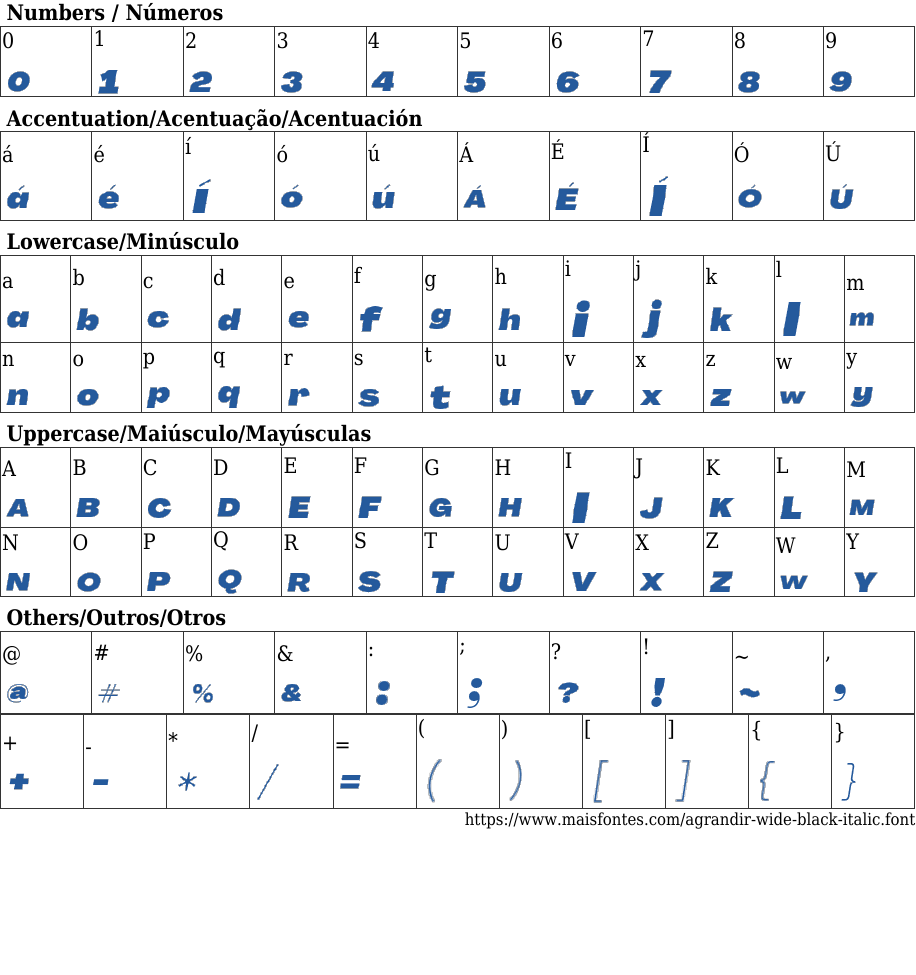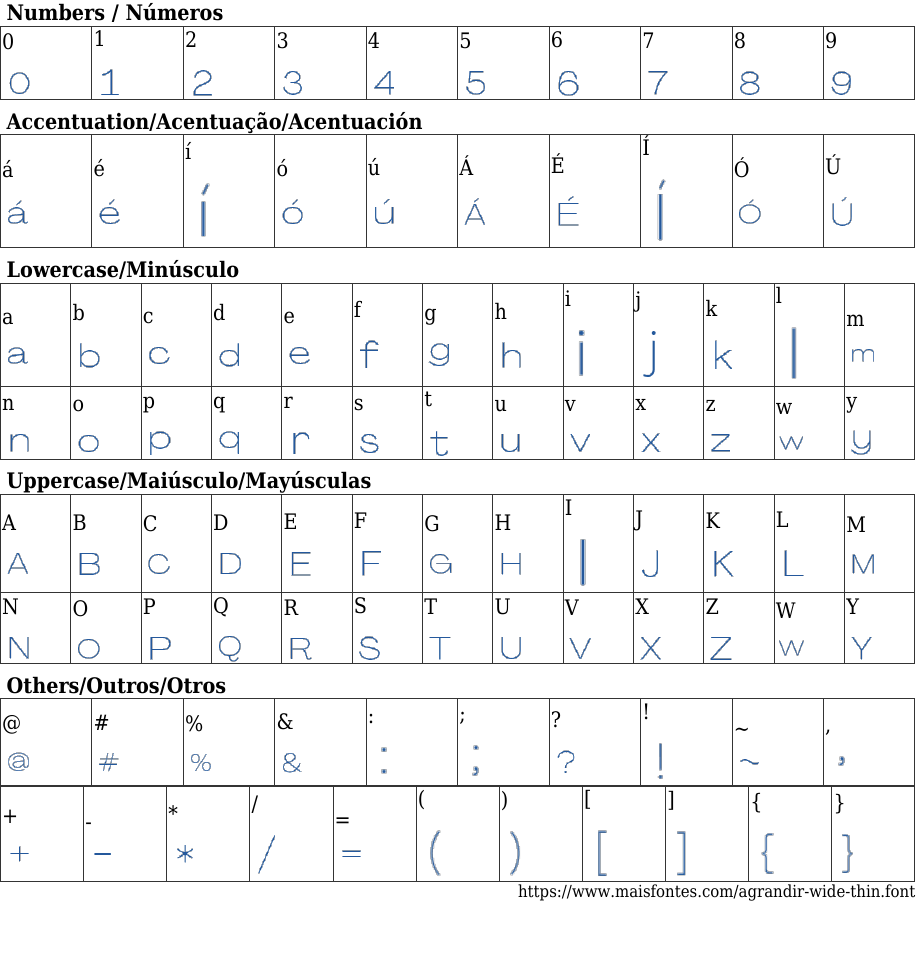
Agrandir Wide Font Download - It celebrates humanity, not machines. It has a modern and minimalistic appearance,.
It has a modern and minimalistic appearance,. It celebrates humanity, not machines.
It celebrates humanity, not machines. It has a modern and minimalistic appearance,.
It has a modern and minimalistic appearance,. It celebrates humanity, not machines.
It Celebrates Humanity, Not Machines.
It has a modern and minimalistic appearance,.